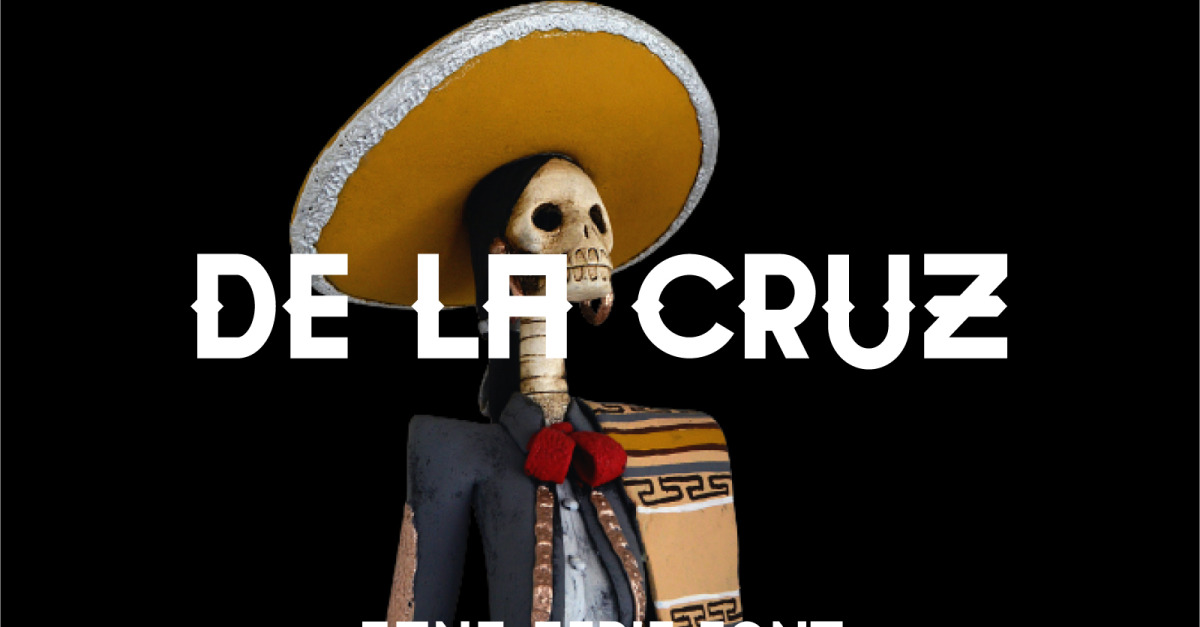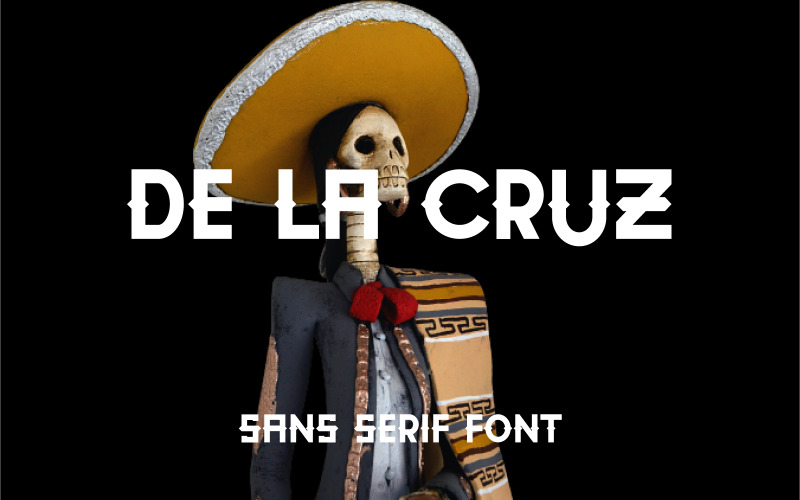
De La Ruz - Sans Serif Font
Introducing **Bhoquits**, a simple and elegant sans serif font.
So perfect for you who needs a typeface for logo designs, magazine, social media, brochure, and many more.